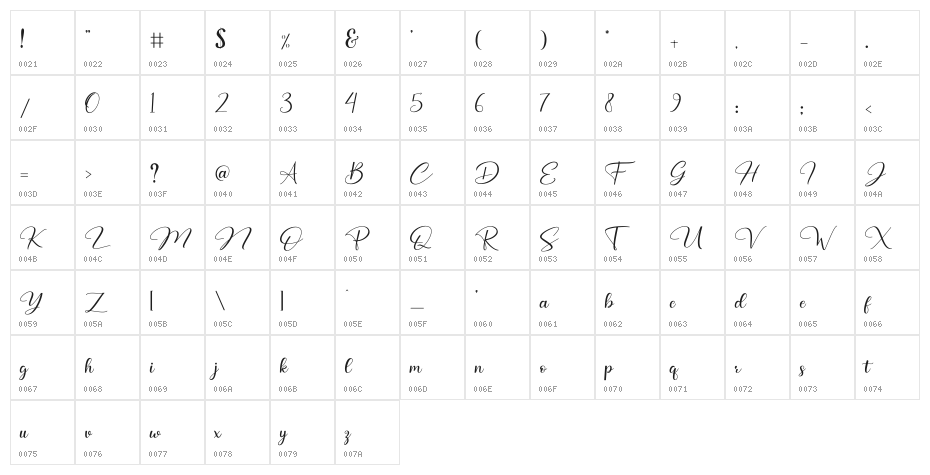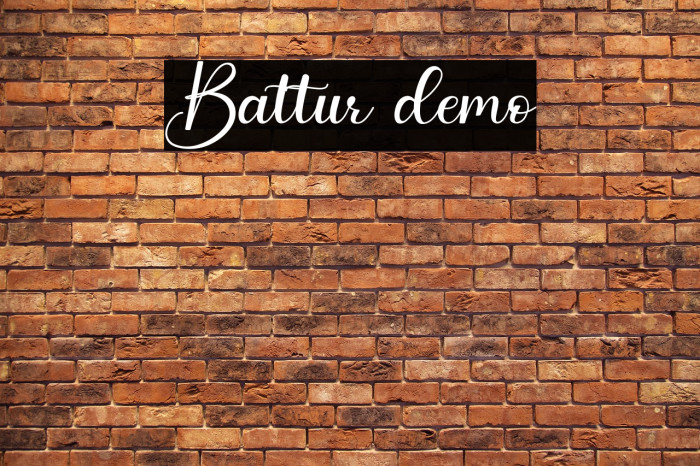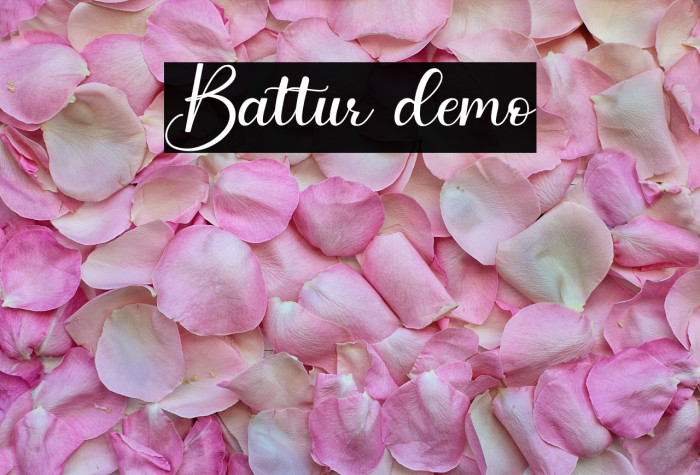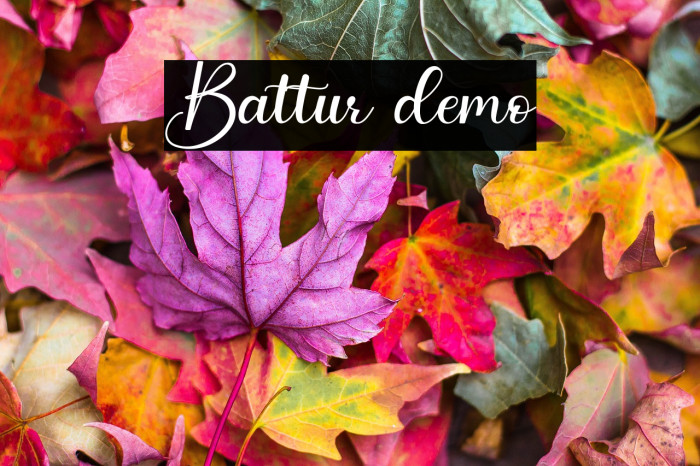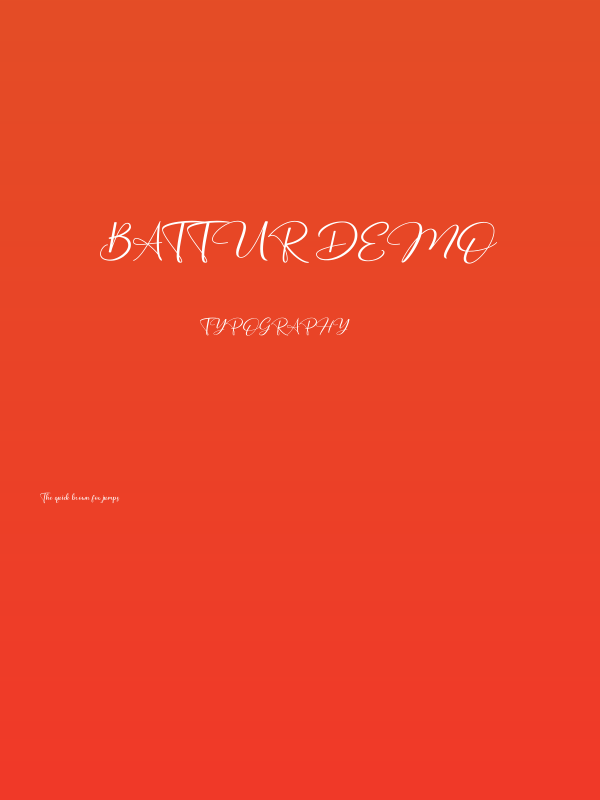
Battur demo Font
Battur demo Description
This font features a sophisticated and elegant script style, characterized by its flowing, cursive letterforms. The uppercase letters are particularly ornate, with sweeping curves and flourishes that give a sense of movement and grace. The lowercase letters maintain a more consistent baseline, offering a harmonious balance between the elaborate capitals and the simpler, yet still stylish, lowercase characters. The numerals are clear and legible, with a slight slant that complements the overall cursive theme. Special characters are designed with the same attention to detail, ensuring they integrate seamlessly with the rest of the typeface. This font's refined aesthetic makes it ideal for projects that require a touch of elegance and sophistication.